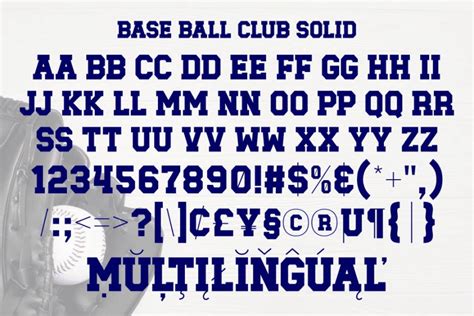
Unveiling The Timeless Elegance Of Baseball Club Solid Font
Unveiling the Timeless Elegance of Baseball Club Solid Font
Hey everyone! Ever wondered about the perfect font that screams “baseball” without being overly flashy? Well, buckle up, because we’re diving deep into Baseball Club Solid Font ! This isn’t just any font; it’s a classic, a cornerstone, a true MVP in the world of typography. We’re gonna break down everything you need to know about this gem, from its history to how you can use it to knock your design projects out of the park. Get ready to swing for the fences!
Diving into the Heart of Baseball Club Solid Font
Baseball Club Solid Font , as the name suggests, is a font family heavily inspired by the world of baseball. It’s characterized by its clean, bold, and solid appearance, making it incredibly versatile for a wide range of applications. Think of it as the starting pitcher of your font collection – reliable, strong, and always ready to deliver. But what exactly makes this font so special? Let’s take a closer look at its key features and why it’s a go-to choice for designers and baseball enthusiasts alike. One of the most striking features of Baseball Club Solid Font is its robust and unwavering presence. The characters are typically thick and well-defined, ensuring readability even at smaller sizes or on less-than-ideal displays. This solid structure gives the font a sense of authority and confidence, making it perfect for headlines, logos, and any design element where you want to grab attention. Furthermore, Baseball Club Solid Font often incorporates subtle design elements that pay homage to the sport of baseball. These can include rounded corners reminiscent of baseballs, slightly angled letterforms that mimic the movement of a pitch, or even customized letter shapes that reflect the geometry of a baseball diamond. These subtle touches add a layer of depth and character to the font, making it instantly recognizable and appealing to fans of the game. Another key aspect of Baseball Club Solid Font is its versatility. While it’s undoubtedly rooted in baseball aesthetics, it can be adapted to various design projects. You can use it for team logos, promotional materials, website headers, social media graphics, and even merchandise designs. Its clean and modern look also allows it to blend seamlessly with other fonts and design elements, providing a cohesive and visually appealing final product. The origins of the Baseball Club Solid Font family are varied, with many foundries and designers contributing to its evolution. Some fonts draw inspiration from vintage baseball team logos, while others are entirely new creations with a modern twist. This diversity ensures that there’s a Baseball Club Solid Font option for every design need and preference. It’s a testament to the font’s enduring popularity and its ability to adapt to changing design trends. Now, many people ask, where can you use this font? And how can you make the most of it? Well, keep reading because we’re about to explore the practical side of this incredible font and how to unleash its full potential. Also, the font’s readability is a major advantage. In a world where countless fonts are vying for attention, Baseball Club Solid Font stands out with its clarity and legibility. Whether you’re designing for print or digital media, you can trust that your message will be easily understood by your target audience. The solid character design minimizes any ambiguity, especially when used in smaller sizes or in complex layouts. This makes it an invaluable asset for projects where clear communication is paramount. It’s definitely a home run.
History and Inspiration of the Font
Let’s go way back for a moment and chat about where Baseball Club Solid Font came from. These fonts are often inspired by the iconic logos and branding of baseball teams from throughout history. Think about those classic team emblems from the early days of baseball – the bold lettering, the distinctive shapes, and the overall sense of tradition and pride. Many Baseball Club Solid Fonts aim to capture that spirit, bringing a touch of nostalgia and authenticity to your designs. The inspiration doesn’t just come from the past. Modern design principles and trends also play a part. Designers take the essence of baseball fonts and give them a contemporary spin, ensuring they remain relevant and visually appealing to today’s audiences. This means you get a font that’s both classic and modern – the best of both worlds! Some fonts are explicitly crafted to mimic the lettering found on vintage baseball jerseys, while others incorporate elements like the stitching of a baseball or the curve of a bat. These subtle design cues add depth and character, making them perfect for projects that celebrate the sport’s rich heritage. Think of it like this: these fonts are designed to evoke the feeling of a crisp, sunny afternoon at the ballpark, the crack of the bat, and the roar of the crowd. That’s the vibe they bring to your designs.
Best Uses for Baseball Club Solid Font
Okay, so we’ve covered the basics. Now, let’s get into the fun stuff: how you can actually use Baseball Club Solid Font in your own projects! This font is super versatile, so you can apply it in a bunch of different ways. Let’s dive in, shall we?
Designing Logos and Branding Materials
One of the most obvious, and most effective, uses for Baseball Club Solid Font is in creating logos and branding materials. This font is perfect for any business or organization associated with baseball, sports, or anything that wants to convey a sense of strength, reliability, and tradition. Imagine a logo for a local little league team, a sports bar, or even a brand of athletic apparel. The bold and solid structure of the font will make your brand instantly recognizable and memorable. When creating logos, consider the overall feel you want to achieve. Do you want to evoke a sense of nostalgia or a more modern vibe? You can easily adjust the font’s size, weight, and color to suit your specific branding needs. Experiment with different combinations to find the perfect look for your logo.
Creating Eye-Catching Headlines and Titles
Need to make your headlines pop? Baseball Club Solid Font to the rescue! This font is perfect for headlines, titles, and other large-format text elements. Its bold and clear design ensures that your message is seen and understood, even from a distance. Use it on website headers, posters, social media graphics, and anywhere else you need to grab someone’s attention. Keep in mind that a good headline can be the difference between a click and a scroll, so choosing the right font is crucial. With its solid structure and unique design, Baseball Club Solid Font will help you create headlines that are both visually appealing and informative. Experiment with different font weights and sizes to find the perfect balance for your specific project.
Designing Sports-Themed Graphics and Merchandise
If you’re creating graphics or merchandise related to baseball or sports, Baseball Club Solid Font is your new best friend. Use it on t-shirts, caps, posters, and other items to create a cohesive and appealing design. The font’s association with baseball makes it a natural fit for sports-related projects. It allows you to create designs that are both stylish and instantly recognizable to sports fans. You can also incorporate other design elements, such as baseball-themed illustrations, team colors, and slogans, to enhance the overall aesthetic and make your designs even more engaging. Think of it like a grand slam for your designs!
Pairing Baseball Club Solid Font with Other Fonts
Okay, guys, let’s talk about the art of mixing fonts. Using the right font pairings can really take your designs to the next level. Baseball Club Solid Font is amazing on its own, but it can be even better when paired with other fonts to create a balanced and visually appealing design. Here’s how to do it right!
Choosing Complementary Fonts
When choosing a font to pair with Baseball Club Solid Font , think about contrast and harmony. You want fonts that complement each other, creating a balance that’s easy on the eyes. A good rule of thumb is to pair a bold and solid font like Baseball Club Solid Font with a more delicate or streamlined font. This contrast will help to highlight the strengths of both fonts, making your design more interesting and dynamic. Here are a few font styles that often work well:
• Serif Fonts : A classic serif font (like Times New Roman or Garamond) can provide a nice contrast to the bold Baseball Club Solid Font . They add a touch of elegance and sophistication to your designs.
• Sans-Serif Fonts : If you prefer to stay in the sans-serif world, look for fonts with a clean and modern appearance (like Open Sans or Lato). These fonts will offer a more contemporary feel and help to balance the bold character of Baseball Club Solid Font .
Conclusion: Embrace the Power of Baseball Club Solid Font
So, there you have it, folks! Baseball Club Solid Font is more than just a font; it’s a statement. It’s a shout-out to the timeless game, a symbol of strength and tradition. It’s perfect for logos, headlines, and anything that needs a touch of baseball magic. Whether you’re a designer, a baseball fan, or just someone looking for a killer font, this one is a winner. So go out there, download it, and start creating! You’re now equipped to create designs that will hit it out of the park. Now, go make some magic! Play ball!”